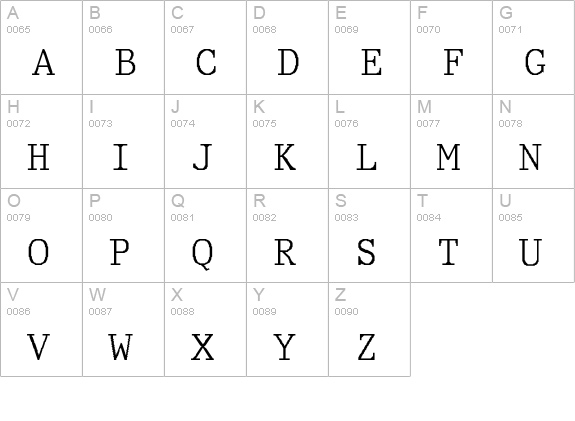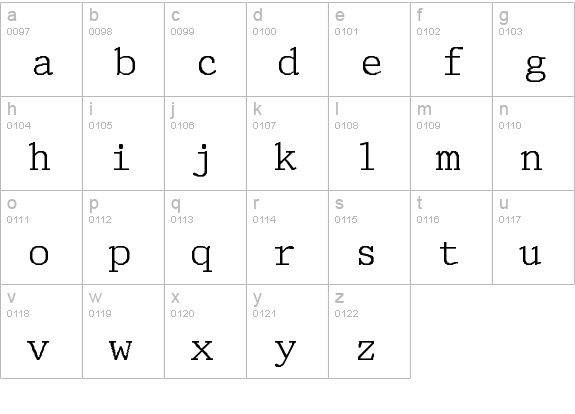
PrestigePica-Normal is the standard, neutral variant in the PrestigePica typeface family \xE2\x80\x94 well suited to general body text, paragraphs, and standard typographic work.
PrestigePica-Normal font is a timeless and elegant typeface that exudes sophistication and professionalism. Its classic design makes it perfect for a wide range of projects, from formal documents to creative designs. The clean lines and balanced proportions of PrestigePica-Normal font make it easy to read and visually appealing. What sets PrestigePica-Normal font apart is that it is available for free download at FontsMarket.com. This means that you can access this high-quality font without any cost, making it a valuable addition to your font library. Whether you're a designer, writer, or business professional, PrestigePica-Normal font offers versatility and style that will enhance your projects. With its timeless appeal and free availability, PrestigePica-Normal font is a must-have for anyone looking to elevate their design work. Download it today and discover the endless possibilities this font has to offer.